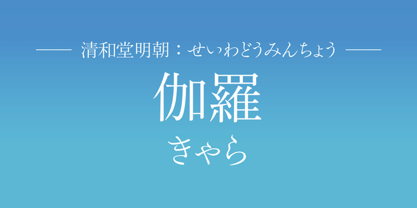
Seiwa Min Kyara Std
After the transition from metal type to phototypesetting, characters could be designed directly through brush writing, resulting in elegant and delicate forms. The kanji of "Seiwado Mincho" have further evolved this, adjusted to achieve a snugness not found in previous Mincho typefaces, while also weaving in the attractive qualities of the traditional text-specific Mincho typefaces, thereby creating a dignified kanji suitable for body text. "SeiwaMinKyara" represents the refined and fragrant elegance of the premium aromatic wood, "Kyara."
Seiwado Mincho font places great importance on the flow of characters. It was created with the constant image of the special atmosphere that arises between the work and the reader.